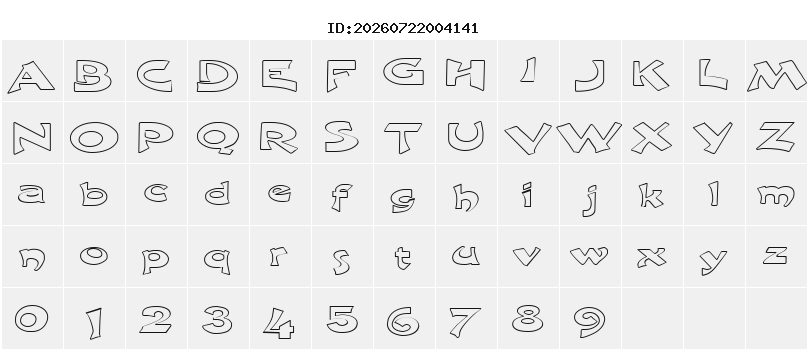
• Font Name: FZ JAZZY 11 HOLLOW EX
• Full Font Name: FZ JAZZY 11 HOLLOW EX
About FZ JAZZY 11 HOLLOW EX.ttf
FZ JAZZY 11 HOLLOW EX.ttf is a modern, elegant sans-serif font designed for ultimate readability and visual harmony. Perfect for branding, headlines, web design, and print materials.